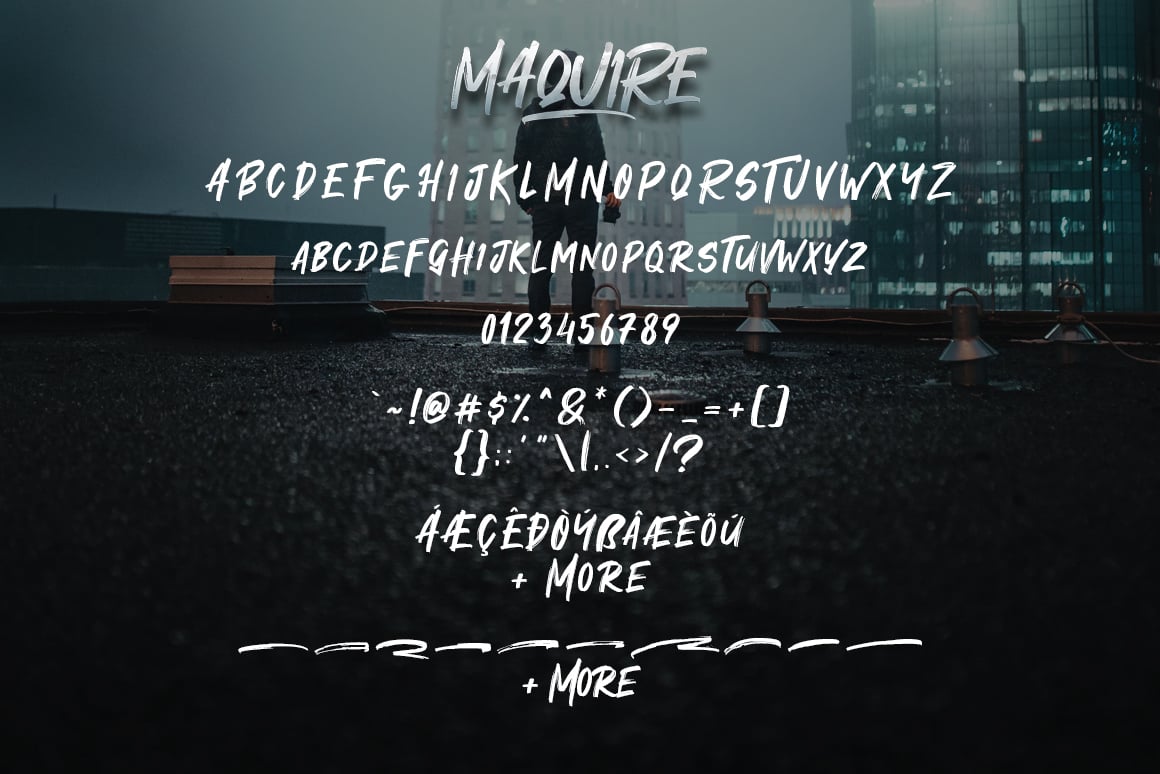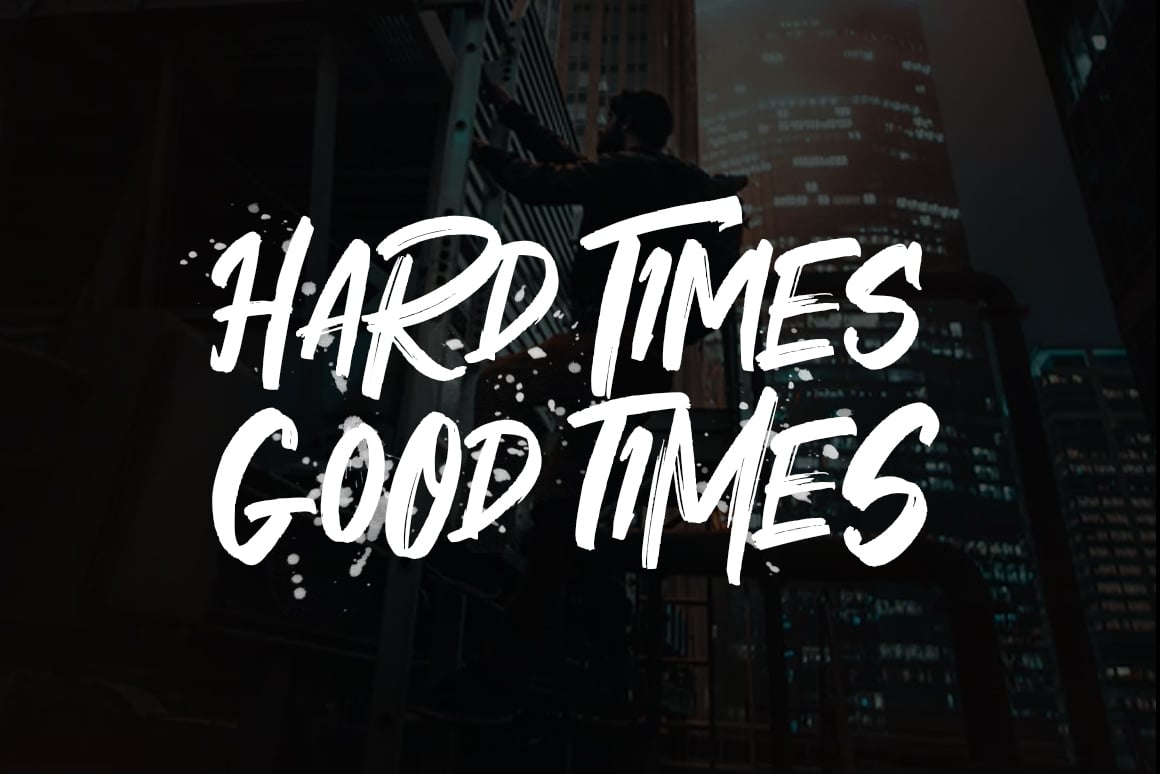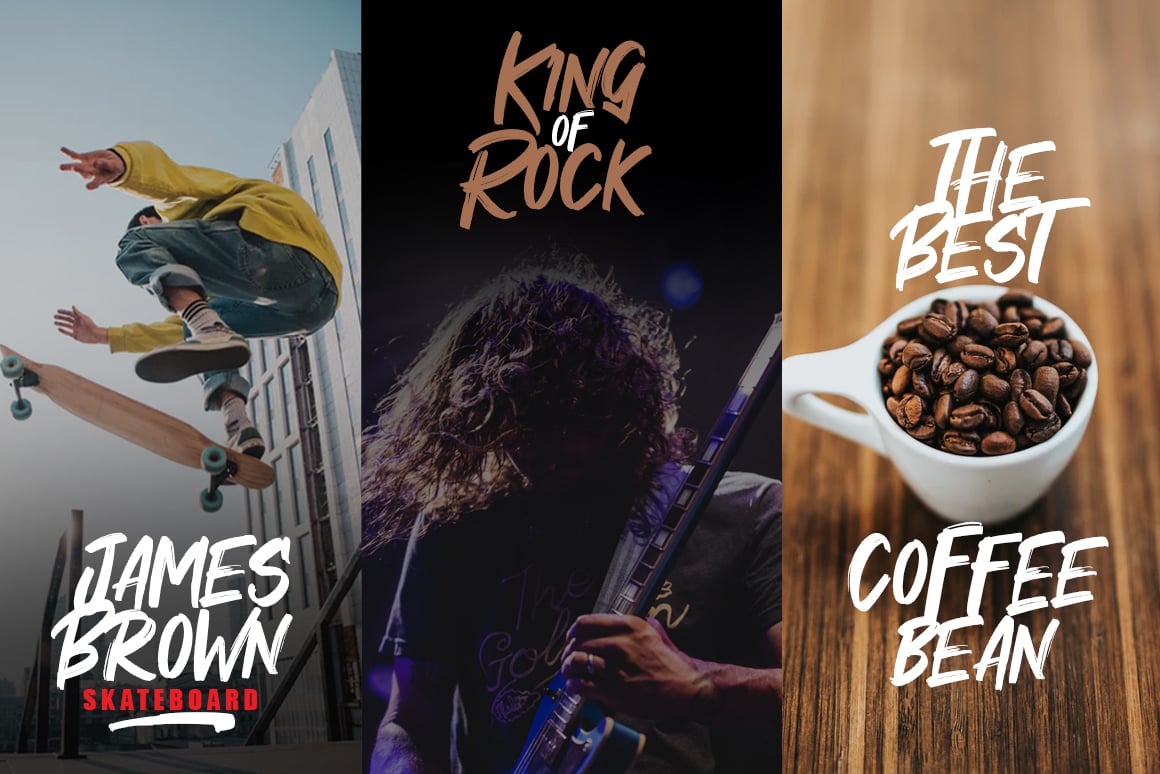
Maquire Brush Font
The Maquire is a fresh handwritten font brush, elegant and vintage feel character set. The Maquire font includes a full set capital and lowercase letters, as well as multi-lingual support, swashes, numerals, & punctuation. The Maquire font exclusive only in envato web.
- Numeral & punctuation
- Ligature Feature
- Multilingual support for; ä ö ü Ä Ö Ü ß ¿ ¡ & more